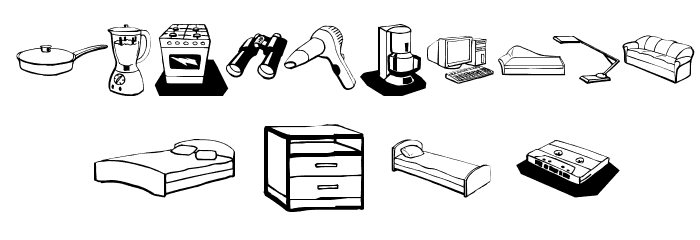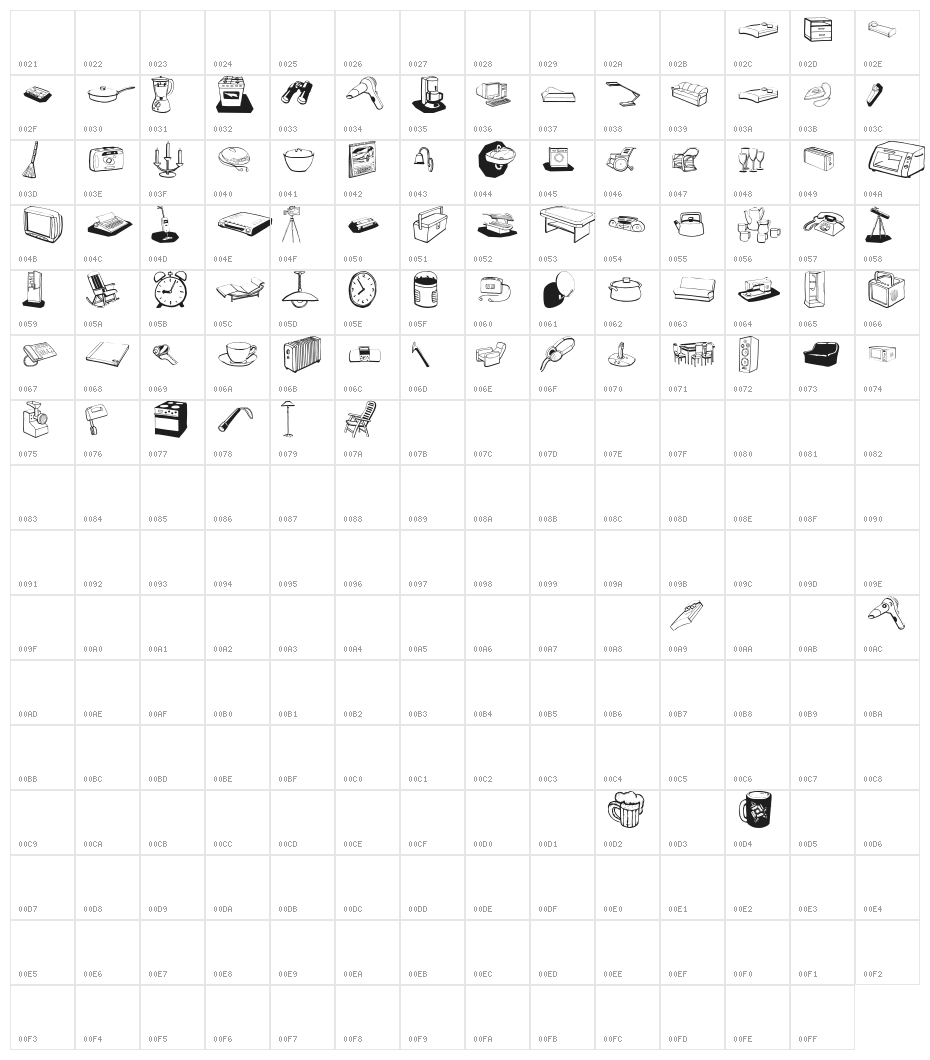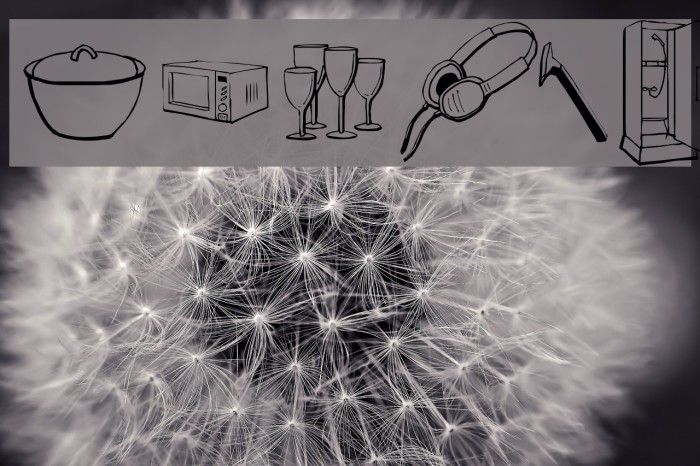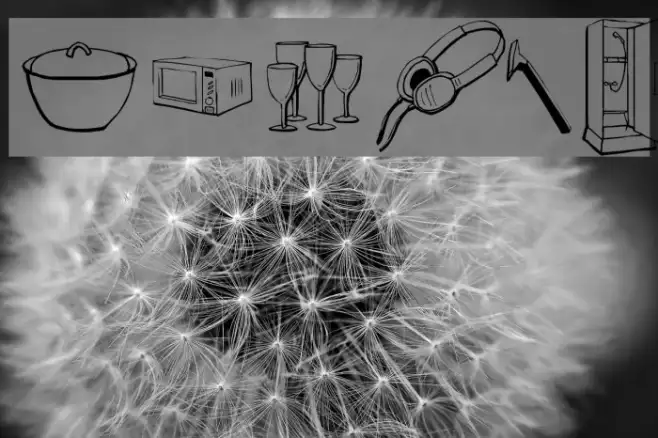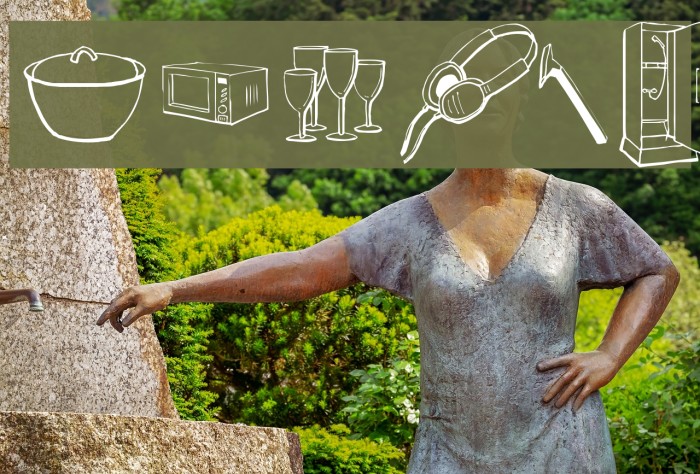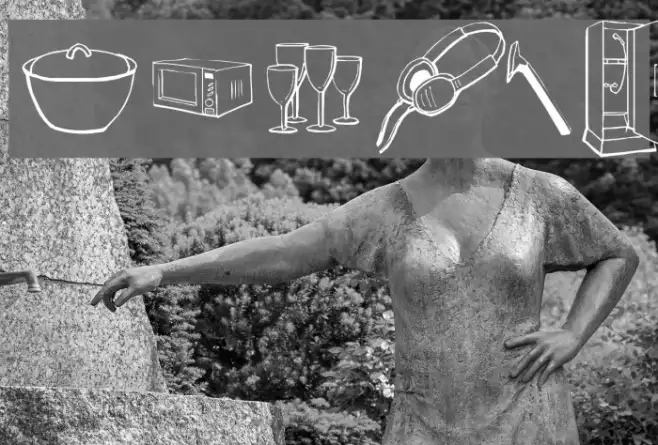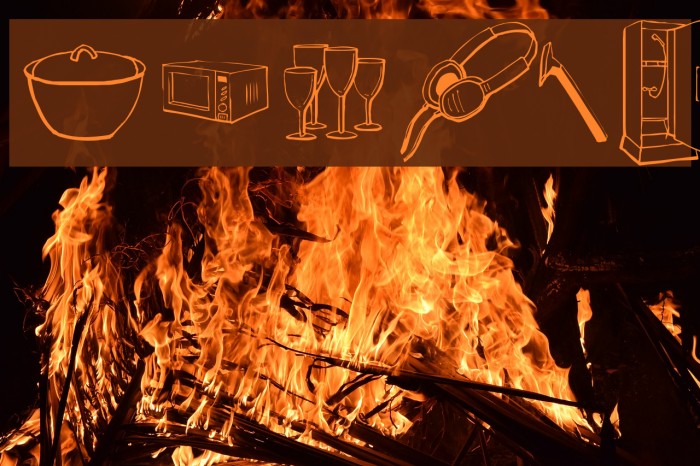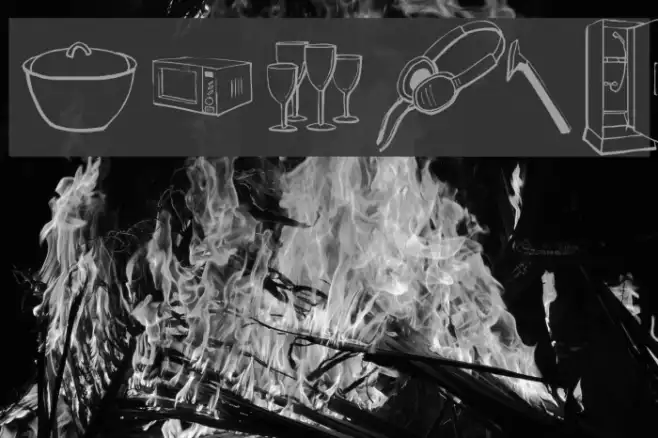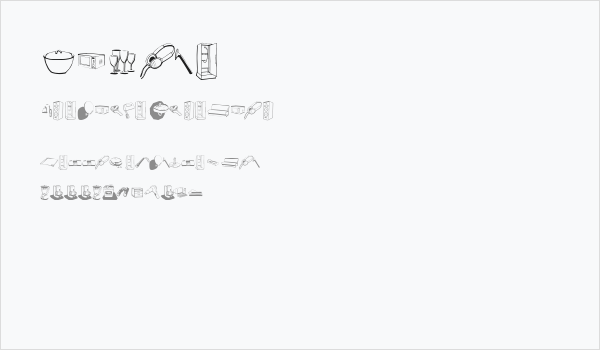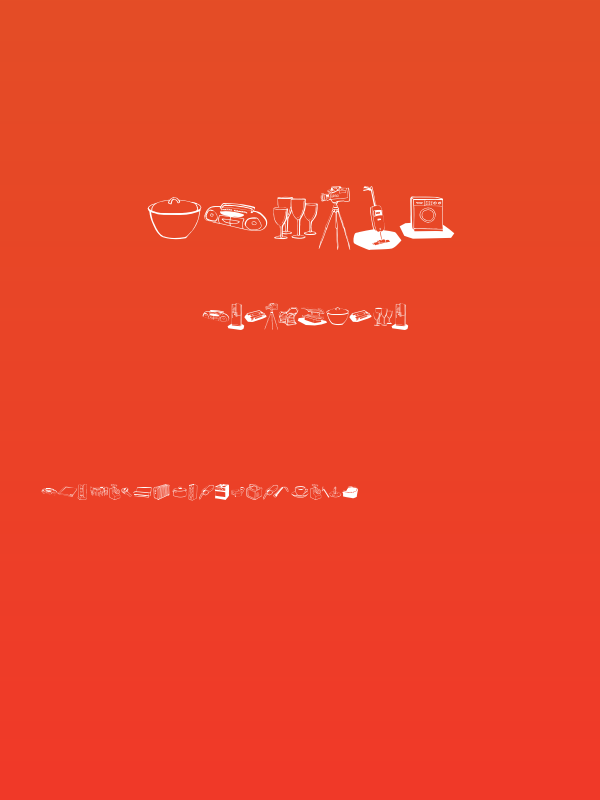
AtHome Font
AtHome Description
A playful, hand-drawn decorative font consisting of detailed black-and-white illustrations of household objects representing each character. Each letter and symbol is depicted as a unique home-related item, giving the set a whimsical and illustrative appearance.
| Overall Style | Decorative, Playful, Illustrative |
| Use Case | Logos, Posters, Headlines, Educational Materials |
| Proposed Projects | Children's books, playful branding, educational materials, home decor posters, creative invitations. |